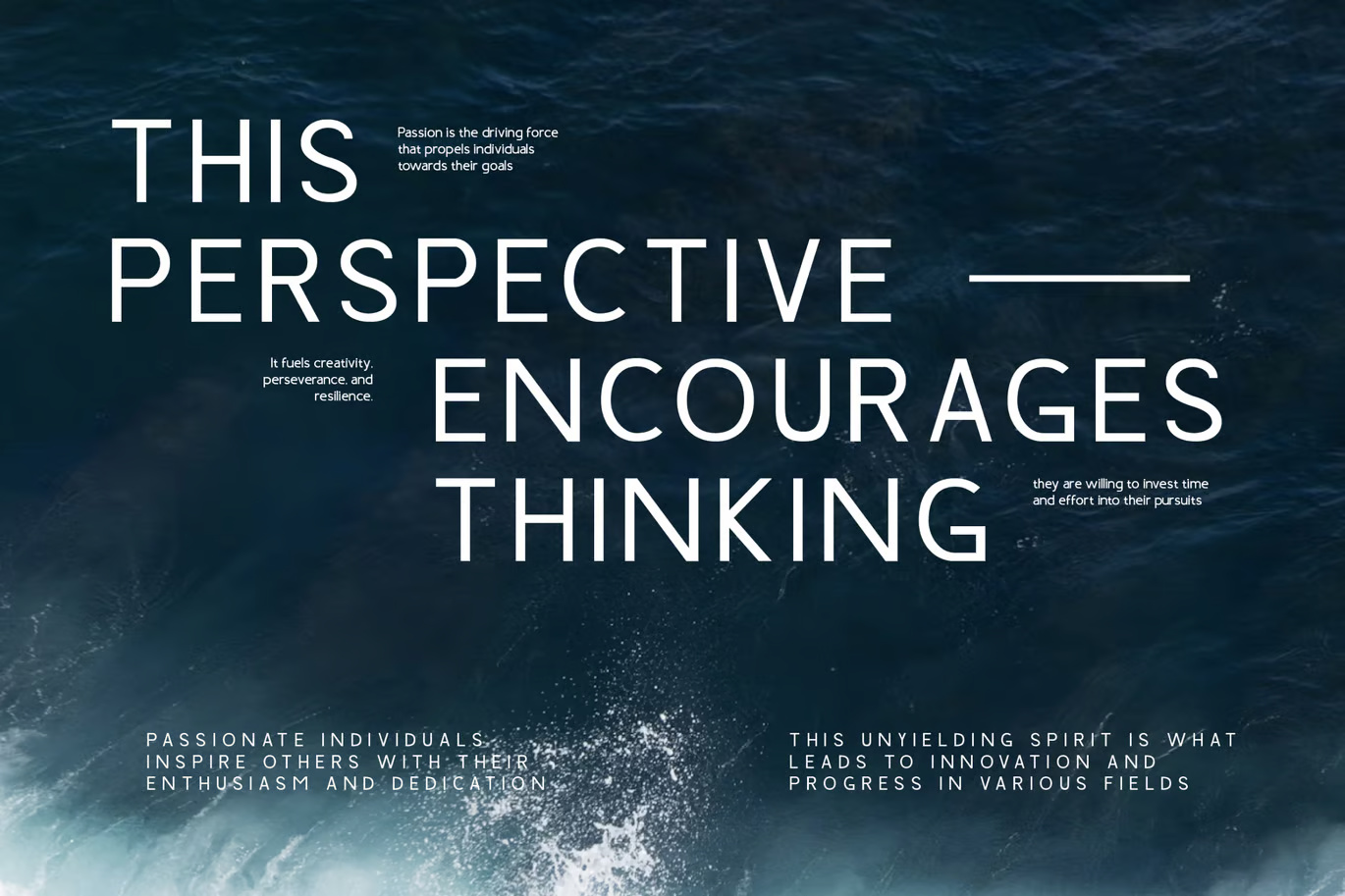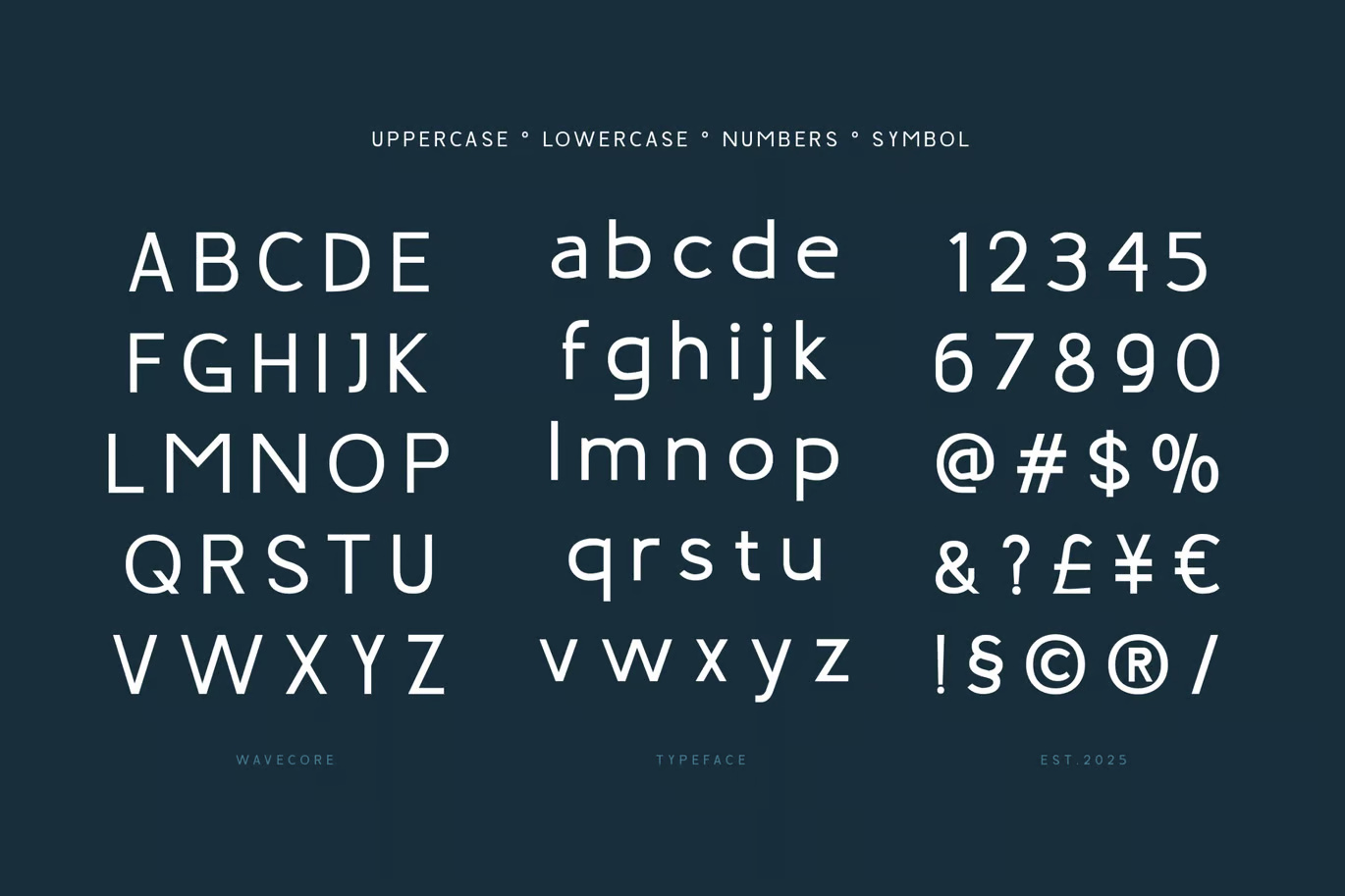
Wavecore Sans Serif Font
Elevate your designs with Hendritage, a modern font that brings elegance and style to your projects. Perfect for quotes, logotypes, magazine headers, and more, this versatile typeface ensures your text stands out beautifully.
Wavecore Sans Serif Modern Font